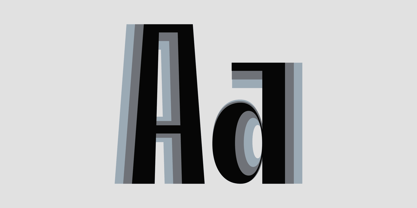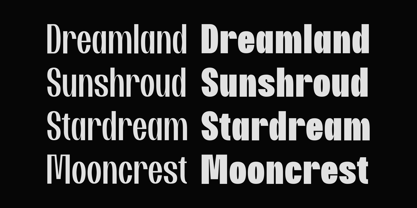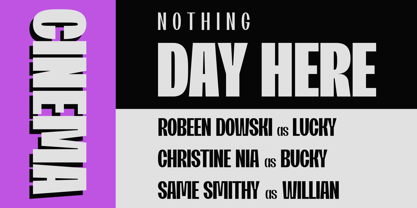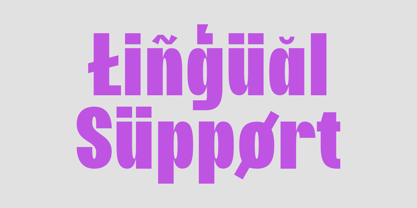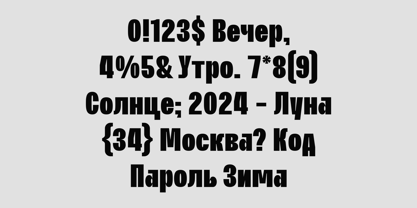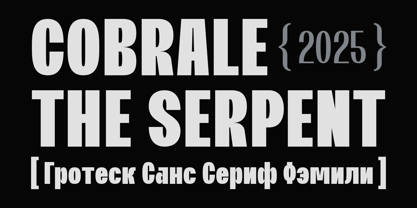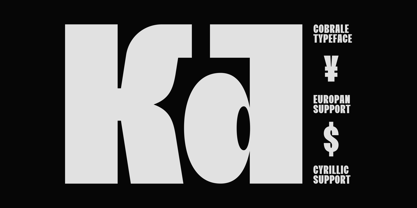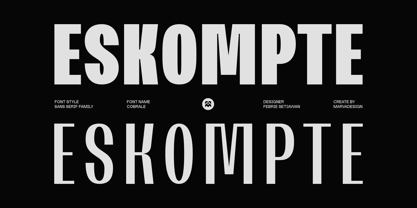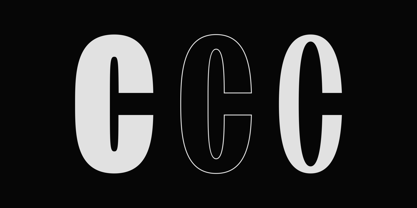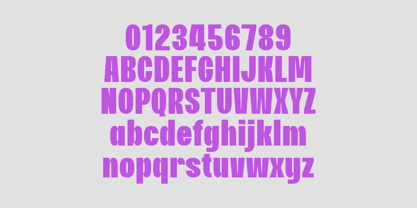
Cobrale
by Marvadesign
The Cobrale Font Family was designed by Febrie Setiawan and published by Marvadesign. Cobrale contains 3 styles and family package options. More about this family
Introducing Cobrale is a modern sans-serif font family that combines bold expression with sharp versatility. Designed with three distinct styles Regular, Medium, and Bold it offers flexibility for a wide range of design needs, from minimal editorial layouts to powerful display headlines. The typeface carries a clean grotesque character, with strong geometric proportions and subtle curves that give it both strength and elegance. Supporting not only the Latin alphabet but also the Cyrillic script, Cobrale ensures global usability, making it an excellent choice for branding, posters, packaging, and digital interfaces. With its commanding presence and timeless clarity, Cobrale embodies both contemporary aesthetics and practical functionality, positioning itself as a typeface that balances creativity with professional precision.
Designers: Febrie Setiawan
Foundry: Marvadesign